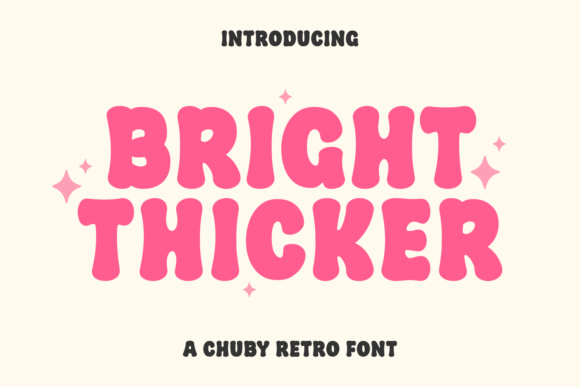
Introducing the Bright Thicker Font: A Typography Masterpiece
In the world of typography, fonts play a crucial role in conveying messages, evoking emotions, and creating a lasting impression. Among the numerous typefaces available, the Bright Thicker Font stands out as a unique and captivating masterpiece that seamlessly blends retro chic with contemporary freshness. This delightful fusion of styles has resulted in a typography marvel that is sure to brighten up and bring an iconic edge to your creative endeavors.
The Inspiration Behind the Bright Thicker Font
The Bright Thicker Font draws inspiration from the groovy era of the past, characterized by vibrant colors, playful patterns, and a carefree attitude. The font’s design is reminiscent of adorable bubbles, generously proportioned to grab attention and evoke a sense of happiness. The characters are carefully crafted to exude a sweet allure, making them perfect for projects that require a bigger, attention-grabbing typeface.
Key Features of the Bright Thicker Font
- Retro-Chic Design: The Bright Thicker Font boasts a unique retro-chic design that pays homage to the typography of the past.
- Contemporary Freshness: Despite its retro inspiration, the font has a contemporary freshness that makes it suitable for modern design projects.
- Generous Proportions: The characters are generously proportioned, making them ideal for headlines, titles, and other applications where a bigger font size is required.
- Vibrant and Versatile: The Bright Thicker Font is a vibrant and versatile typeface that can be used in a wide range of design projects, from playful and fun to bold and attention-grabbing.
Uses of the Bright Thicker Font
The Bright Thicker Font is a versatile typeface that can be used in various design projects, including:
- Headlines and Titles: The font’s generous proportions and attention-grabbing design make it perfect for headlines and titles.
- Posters and Flyers: The Bright Thicker Font is ideal for posters and flyers that require a bold and attention-grabbing typeface.
- Social Media Graphics: The font’s vibrant and playful design makes it suitable for social media graphics, including Facebook posts, Instagram stories, and Twitter headers.
- Branding and Packaging: The Bright Thicker Font can be used in branding and packaging projects to add a touch of personality and whimsy.
Why Choose the Bright Thicker Font?
With so many fonts available, why choose the Bright Thicker Font? Here are a few reasons:
- Unique Design: The Bright Thicker Font has a unique design that sets it apart from other typefaces.
- Versatility: The font is versatile and can be used in a wide range of design projects.
- Attention-Grabbing: The font’s generous proportions and vibrant design make it attention-grabbing and perfect for headlines and titles.
- Easy to Read: Despite its bold design, the Bright Thicker Font is easy to read, making it suitable for body text and other applications where readability is important.
Tips for Using the Bright Thicker Font
Here are a few tips for using the Bright Thicker Font:
- Use it for Headlines: The Bright Thicker Font is perfect for headlines and titles, so use it to grab attention and create a lasting impression.
- Experiment with Colors: The font’s vibrant design makes it perfect for experimenting with different colors and color combinations.
- Pair it with Other Fonts: The Bright Thicker Font can be paired with other fonts to create a unique and visually appealing typography combination.
- Use it for Display Text: The font’s bold design makes it perfect for display text, such as posters, flyers, and social media graphics.
In conclusion, the Bright Thicker Font is a typography masterpiece that combines retro chic with contemporary freshness. Its unique design, generous proportions, and vibrant colors make it perfect for a wide range of design projects, from playful and fun to bold and attention-grabbing. Whether you’re looking to whisper sweet words of love or make a big, bold impact, the Bright Thicker Font is the perfect choice.
Get Ready to Brighten Up Your Designs
With the Bright Thicker Font, you can add a touch of personality and whimsy to your designs. So why wait? Get ready to brighten up your designs and make a lasting impression with this delightful typography masterpiece.